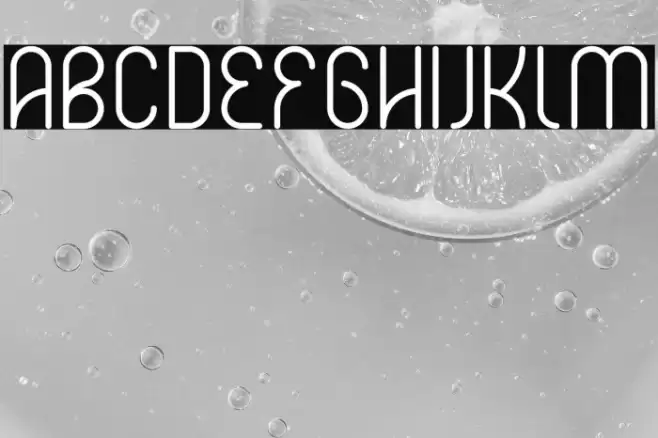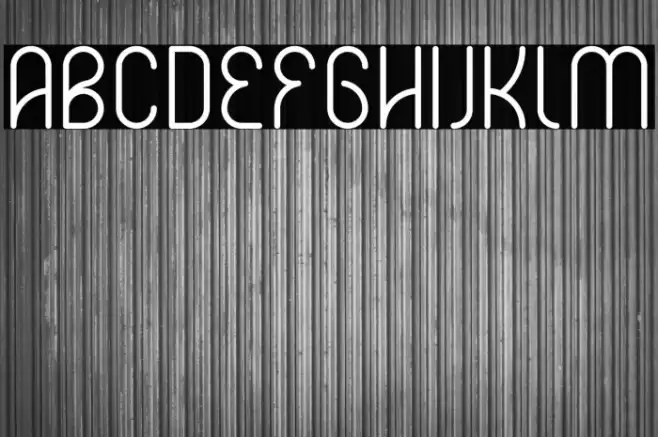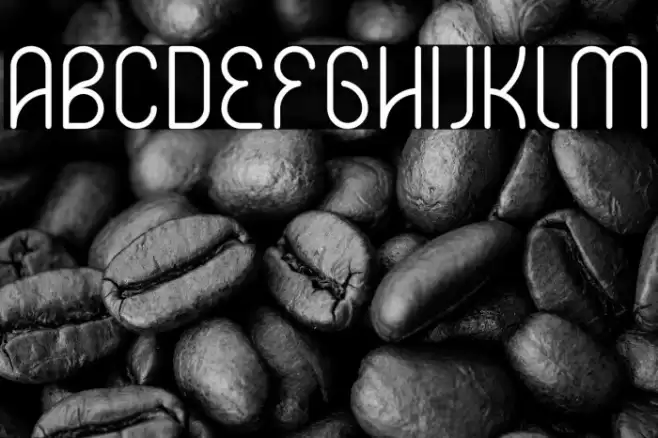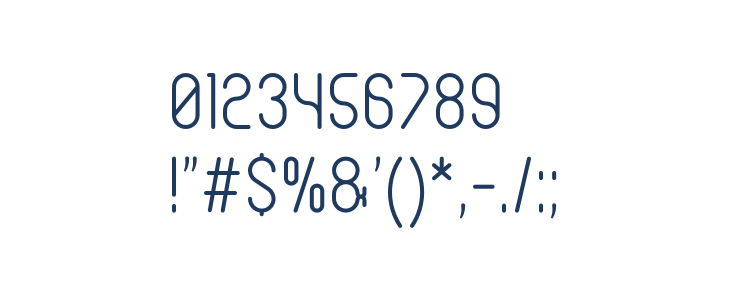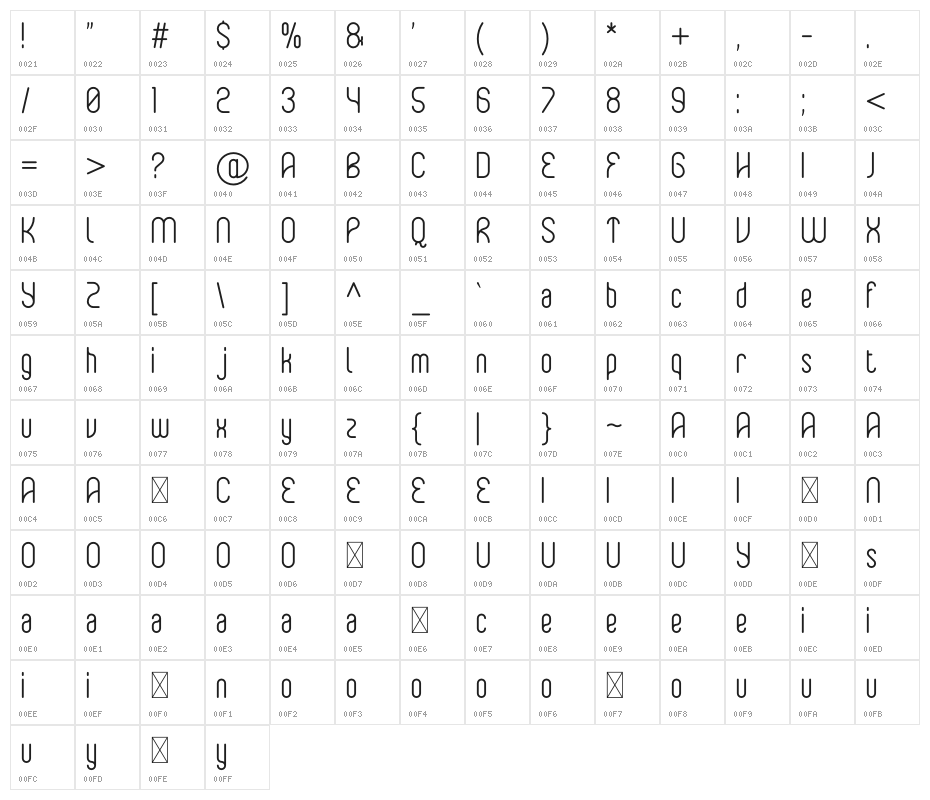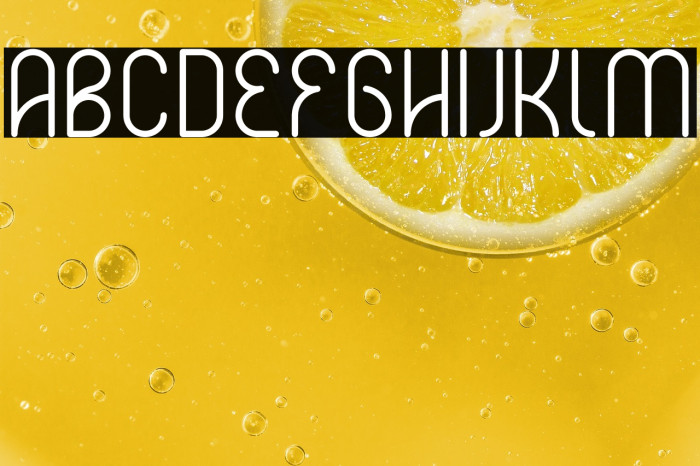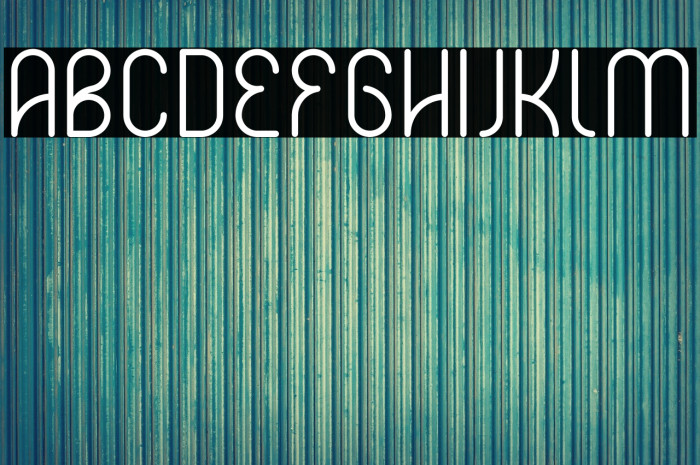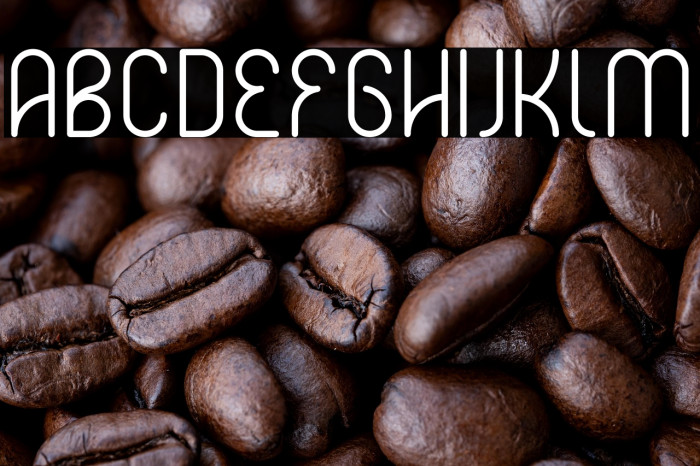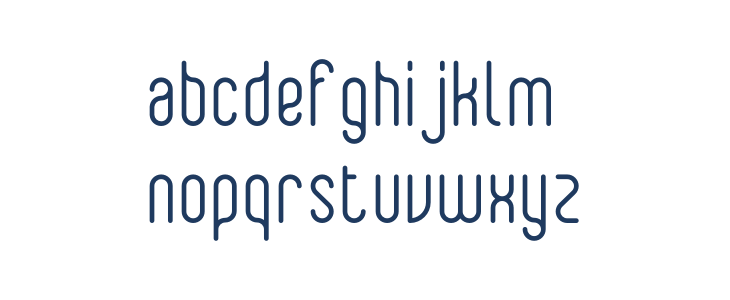
Hakone Font
Hakone Description
This font features a modern, rounded design with a clean and minimalistic aesthetic. The characters are evenly spaced with a consistent stroke width, giving it a uniform appearance. The uppercase letters have a distinctive geometric shape, while the lowercase letters maintain a smooth, flowing style. The numerals are clear and legible, matching the overall design. Special characters are well-integrated, maintaining the font's cohesive look. This font is versatile, suitable for various design projects that require a contemporary and approachable feel.
A modern, rounded font with a clean and minimalistic design from Uncategorized fonts.